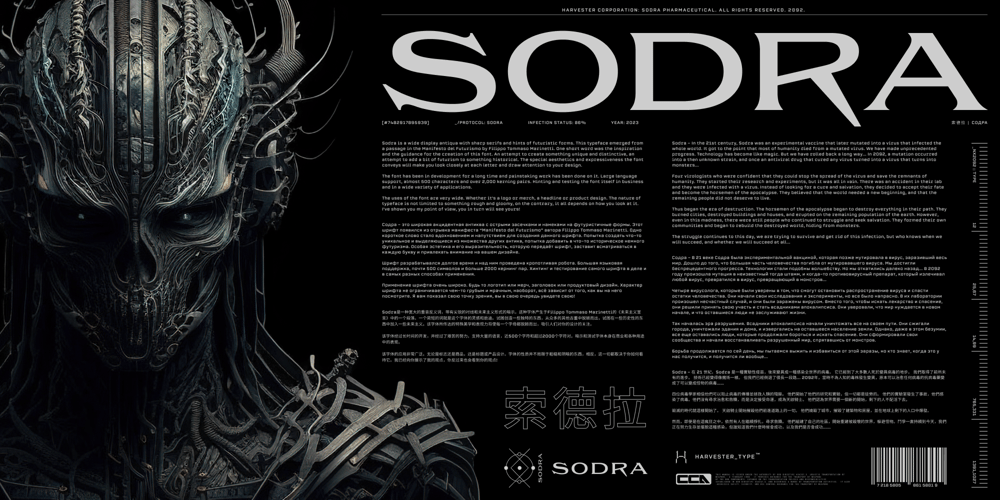
Sodra Font Family was designed by Eugene Bunin and published by Harvester Type. Sodra contains 1 styles and family package options. Sodra is a wide-accented antiqua with sharp serifs and hints of futuristic forms. This typeface emerged from a passage in the Manifesto del Futurismo by Filippo Tommaso Marinetti. One short word was the inspiration and the guidance for the creation of this font. An attempt to create something unique and distinctive, an attempt to add a bit of futurism to something historical. The special aesthetics and expressiveness the type conveys will make you look closely at each letter and draw attention to your design. The font has been in development for a long time and painstaking work has been done on it. Large language support, about 470 characters and almost 4,000 kerning pairs. Hinting and testing the font itself in business and in a wide variety of applications. The uses of the type are very wide. Whether it’s a branding, logo, identity or merch, a headline or product design. The nature of typeface is not limited to something rough and gloomy, on the contrary, it all depends on how you look at it. I’ve shown you my point of view, you in turn will see yours!